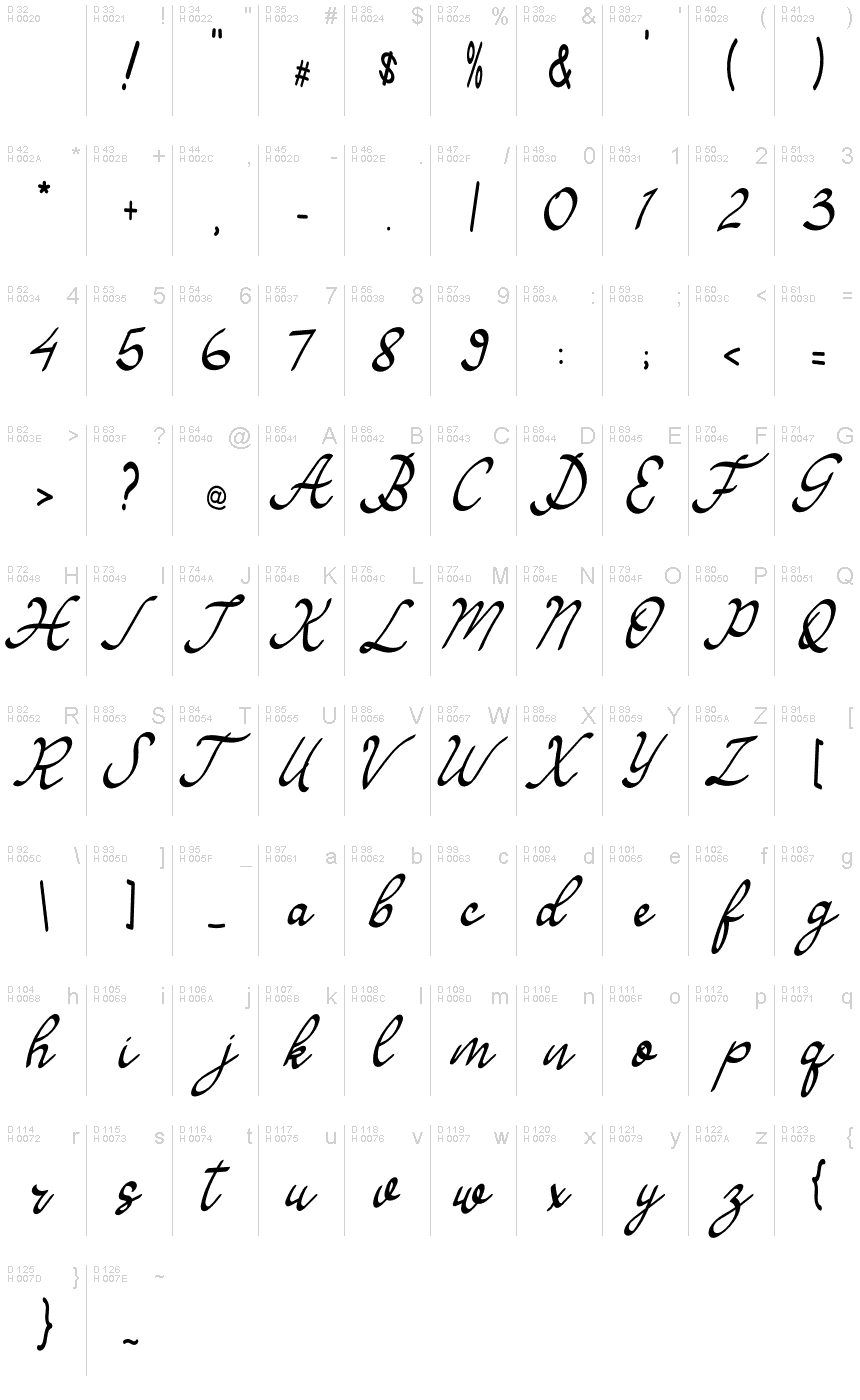
Alvanesa
Alvanesa is a charming handwritten font with a semi-light weight that adds a delicate touch to any project. Designed by Andik Arifin, this font is perfect for creating elegant logos, wedding invitations, and social media graphics. Its flowing curves and signature-style lettering make it ideal for personal branding projects or adding a personalized touch to your designs. Whether you're designing for a boutique brand or crafting heartfelt messages, Alvanesa is sure to impress with its unique style and timeless appeal. Try it out today and elevate your designs to the next level!